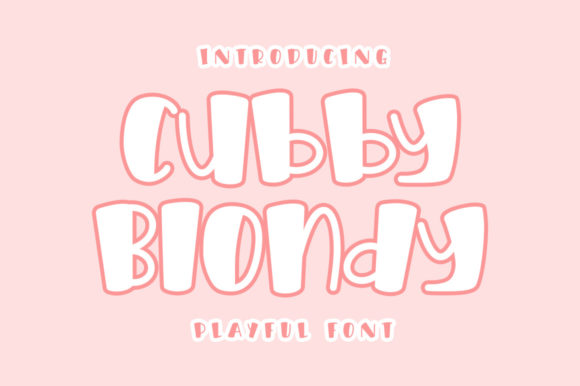
Introducing Cubby Blondy Font, the display font that will transform your creative visions into captivating masterpieces. Journey into a world of bold and trendy typography, where your designs come alive with a touch of playful elegance. Cubby Blondy isn't just a font; it's an artistic expression waiting to be unleashed.
Whether you're an Instagram aficionado seeking fonts to make your feed pop or a DIY enthusiast searching for calligraphy scripts to add a personal touch to your projects, Cubby Blondy is your ultimate companion. This font possesses the unique ability to elevate ordinary words into extraordinary statements.
Step into a realm of boundless creativity, where Cubby Blondy's playful curves and sharp edges dance together in perfect harmony. This font is a visual symphony that commands attention and sparks imagination. Let your designs take center stage, enveloped in the captivating aura of Cubby Blondy.
With Cubby Blondy by your side, your Instagram feed will transform into a gallery of visual delights. Each post will captivate your audience, leaving them in awe of your design prowess. This font will elevate your social media presence to new heights, turning likes into loyal fans.
Beyond the digital realm, Cubby Blondy shines as a font designed to bring your DIY projects to life. Envision handmade cards adorned with heartfelt messages, personalized mugs featuring unique quotes, or eye-catching posters that reflect your artistic flair. Cubby Blondy will lend its charm to every creation, turning them into cherished keepsakes.
But Cubby Blondy's allure doesn't stop there. This font is a versatile chameleon, effortlessly adapting to a multitude of design styles. Whether you're crafting logos, designing websites, or creating marketing materials, Cubby Blondy seamlessly blends with your vision, adding a touch of sophistication and playfulness.
So, embrace the power of Cubby Blondy and unlock the gateway to a world of creative possibilities. Let your imagination run wild as you craft designs that resonate with your audience, leaving an unforgettable impression.
With Cubby Blondy as your font of choice, you'll discover a boundless realm of creativity, where every project becomes a masterpiece and every design tells a captivating story. Ignite your artistic passion and let Cubby Blondy be your creative muse.